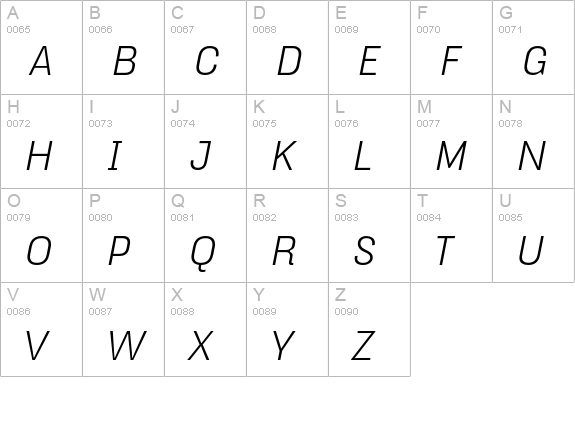
HydraText-LightItalic is a captivating and elegant font that exudes sophistication and modernity. The delicate slant of the italicized letters adds a touch of flair to any design project, making it perfect for conveying a sense of style and refinement. The flowing curves and graceful lines of HydraText-LightItalic create a harmonious balance that is pleasing to the eye. Best of all, HydraText-LightItalic is available for free download at FontsMarket.com. Whether you're working on a branding project, designing a website, or creating a beautiful invitation, this font is a versatile choice that will elevate your work to the next level. Its clean and crisp appearance makes it easy to read, while its subtle italic styling adds a unique touch that sets it apart from other fonts. Add a touch of sophistication to your designs with HydraText-LightItalic and watch as your projects come to life with style and elegance. Download this stunning font for free today at FontsMarket.com and unleash your creativity like never before.